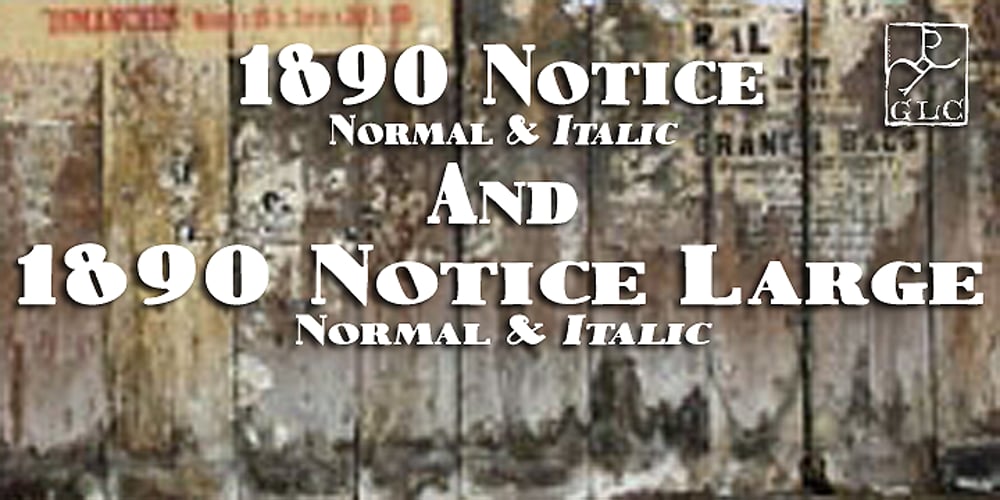
1890 Notice Font Family was designed by published by GLC. 1890 Notice contains 4 styles and family package options. We have created this family inspired from the hand-drawn letters used from the late 1800s until beginning of 1900s for notices, advertising, posters and also early comic titles. It is a hand-made font, with little imperfections that give it its special poetic note. It can be used together with 1906 French News, 1906 Titrage and 1820 Modern.